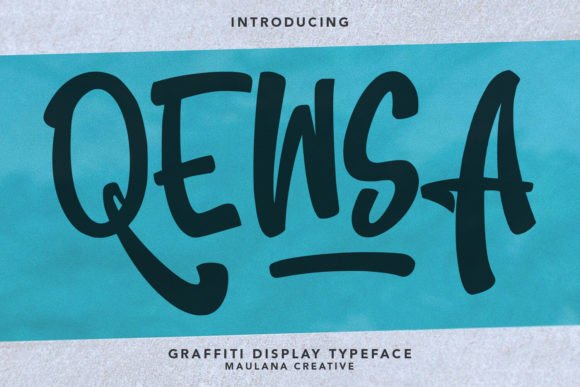
Introducing Qewsa Font, the ultimate choice for adding a touch of magic to your Valentine letters! Created by the talented Maulana Creative, this decorative font is anything but ordinary. With its unique and interesting design, Qewsa is set to captivate your imagination and breathe life into your creative projects.
Why settle for ordinary fonts when you can embrace the extraordinary? Qewsa Font brings a delightful quirkiness that sets it apart from the rest. Its captivating charm will instantly catch the eyes of your audience, leaving a lasting impression. Whether you're designing a heartfelt Valentine's Day card, crafting an enchanting wedding invitation, or simply expressing your romantic side, Qewsa Font is your secret weapon.
Unlock a world of possibilities with Qewsa's versatility. This font effortlessly adapts to any context, making it an ideal choice for a wide range of projects. From playful designs to elegant typographic compositions, Qewsa Font seamlessly blends in, enhancing the visual appeal and conveying your message with unparalleled finesse.
Indulge your senses with the sheer joy that Qewsa Font brings to your creations. Its enchanting curves and intricate details evoke emotions of love, happiness, and excitement. Let your words dance across the page, infused with the magic of this captivating font. Your audience won't be able to resist its allure, drawing them closer to your message and bringing your vision to life.
But Qewsa Font is not just a feast for the eyes; it's also a treasure trove of possibilities. With its extensive character set and multiple stylistic alternates, you have the freedom to customize each letter and create a truly unique masterpiece. Express your creativity, experiment with different variations, and watch as your designs take on a life of their own.
Don't let ordinary fonts dull your creativity. Step into a world of enchantment with Qewsa Font – the best font for your Valentine letters. Let its captivating charm, versatility, and endless possibilities elevate your designs to new heights. Download Qewsa Font today and embark on a journey of creativity, passion, and heartfelt expression.